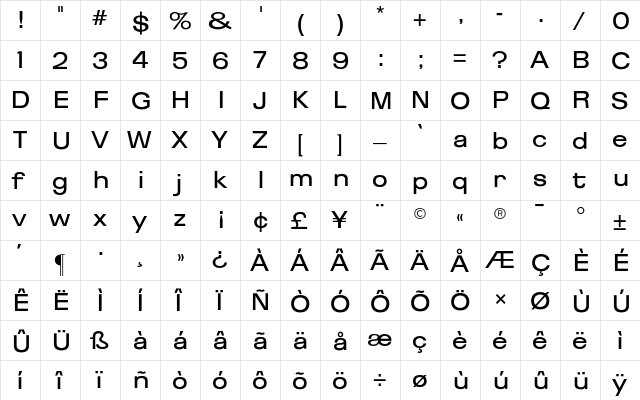
Brazilia Seven CG Regular
Design Context for Brazilia Seven CG Typeface
Brazilia Seven CG is a composed and adaptable typeface that performs quietly and consistently across a wide range of design contexts.